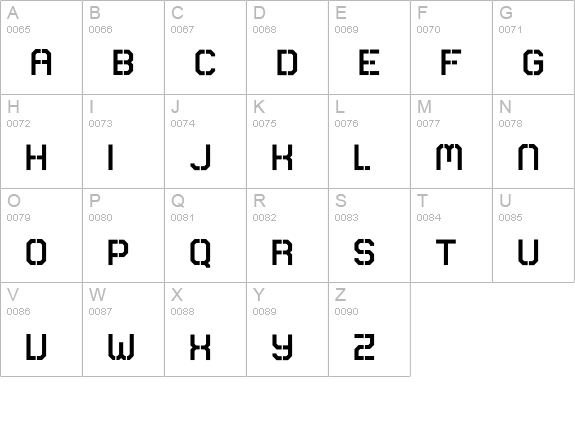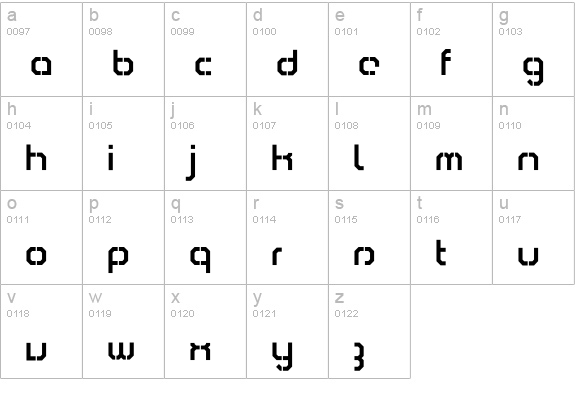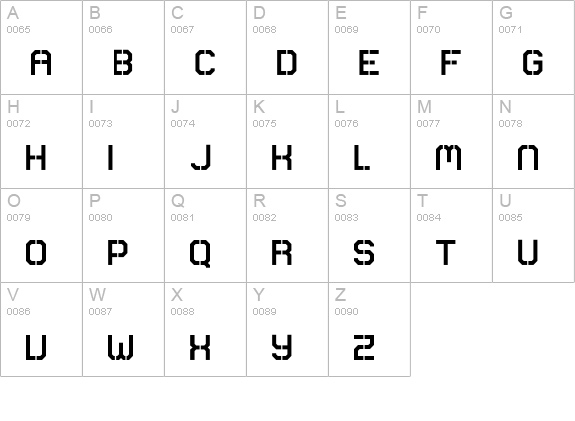
Comsat-Navy-Box font is a bold and striking typeface that exudes a sense of strength and authority. Its unique design features sharp edges and clean lines, making it perfect for making a statement in your designs. The font's futuristic appearance gives it a modern and cutting-edge feel, making it ideal for projects that require a contemporary touch. What sets Comsat-Navy-Box font apart is that it is available for free download at FontsMarket.com. This means that you can easily access this impressive font without any cost, making it a valuable addition to your font library. Whether you're working on posters, logos, or any other design project, Comsat-Navy-Box font will help you stand out and make a lasting impression. Download it today and elevate your designs with this striking and impactful typeface.